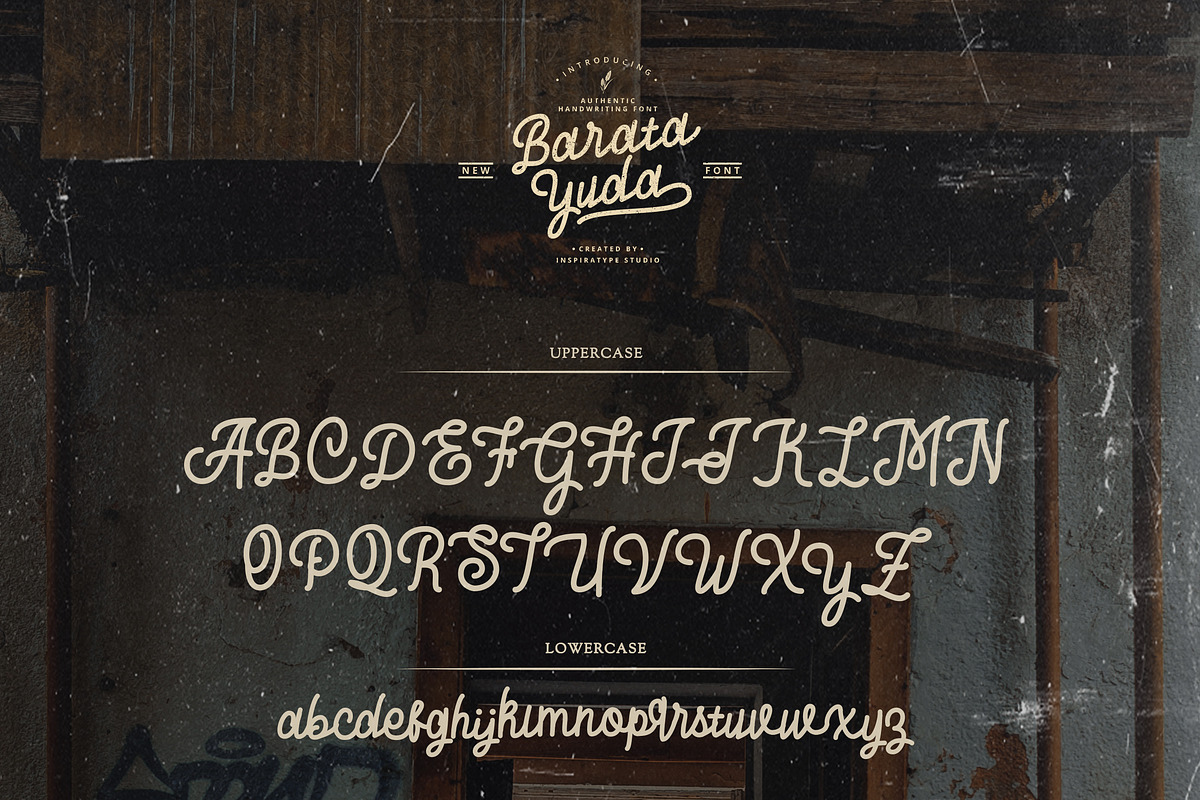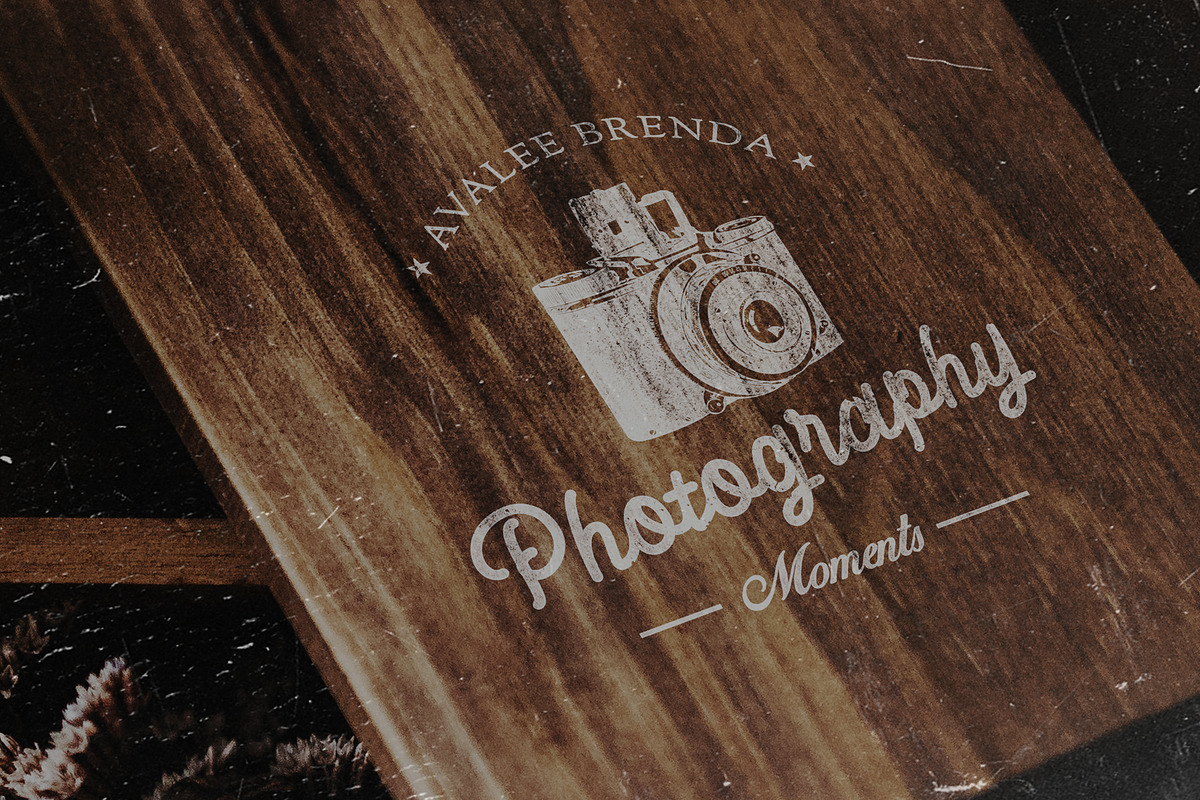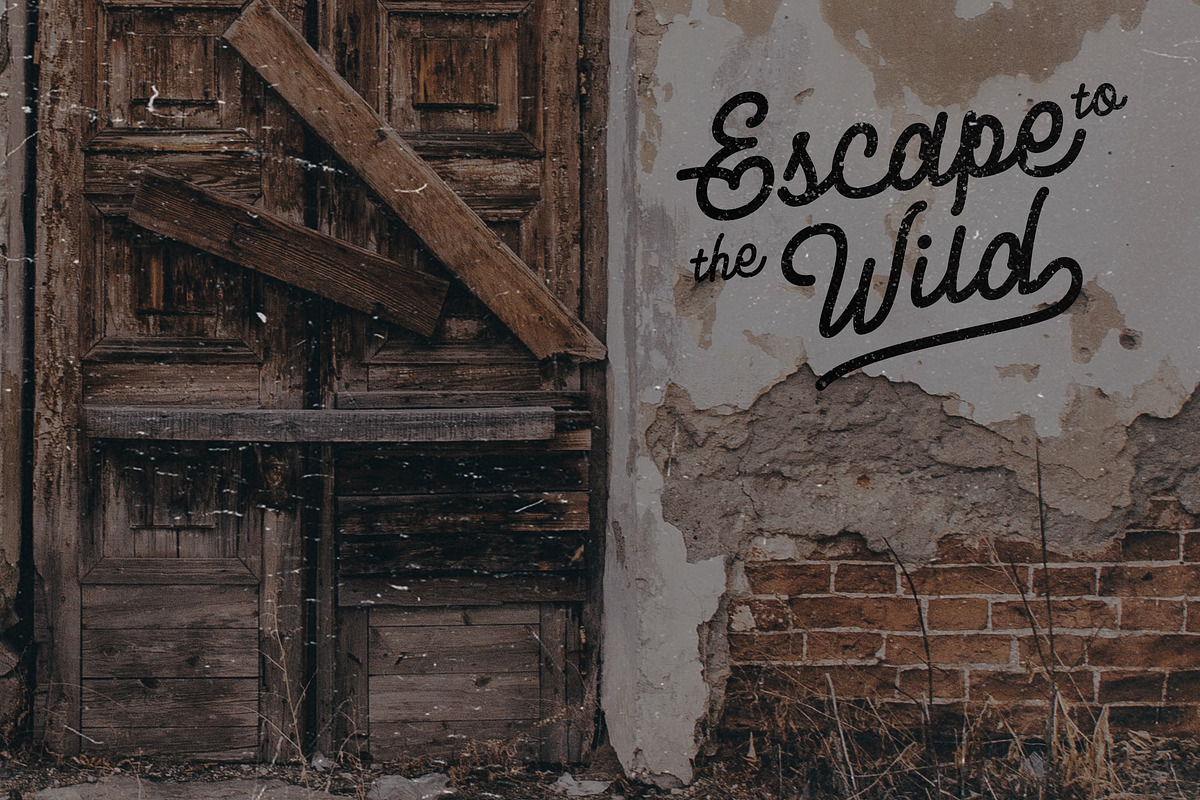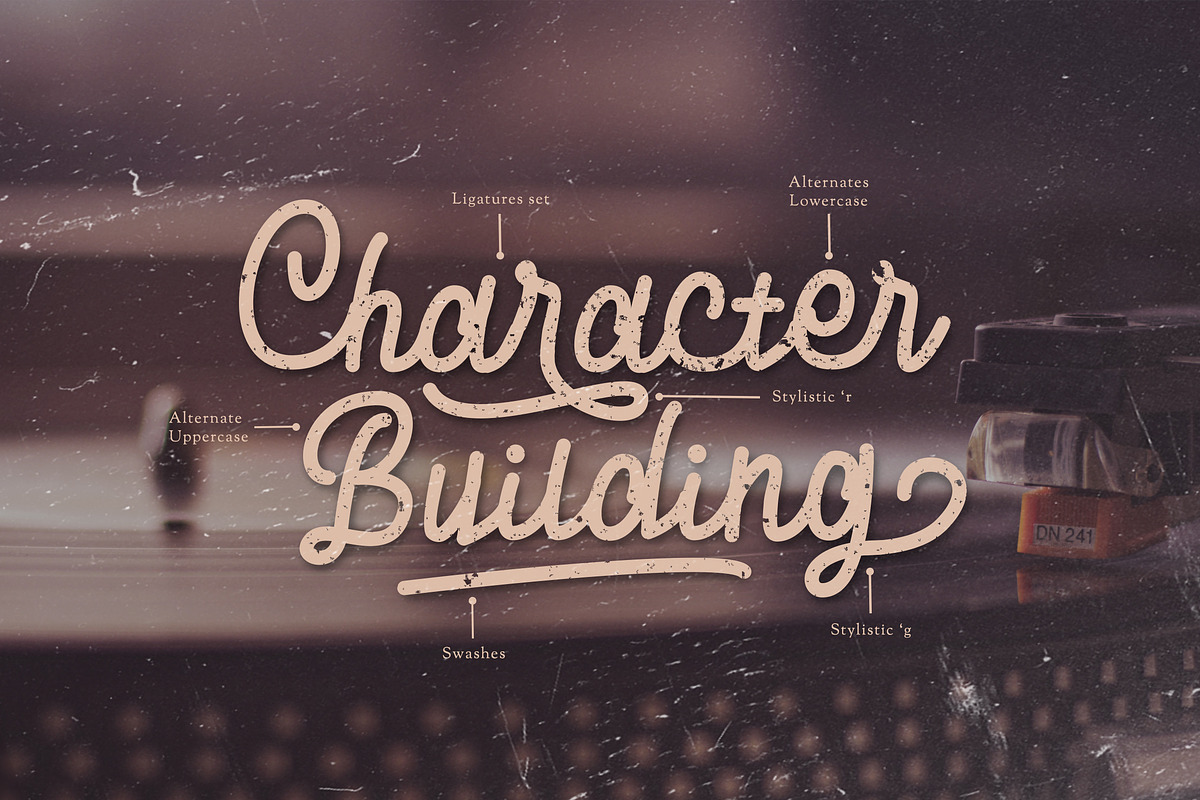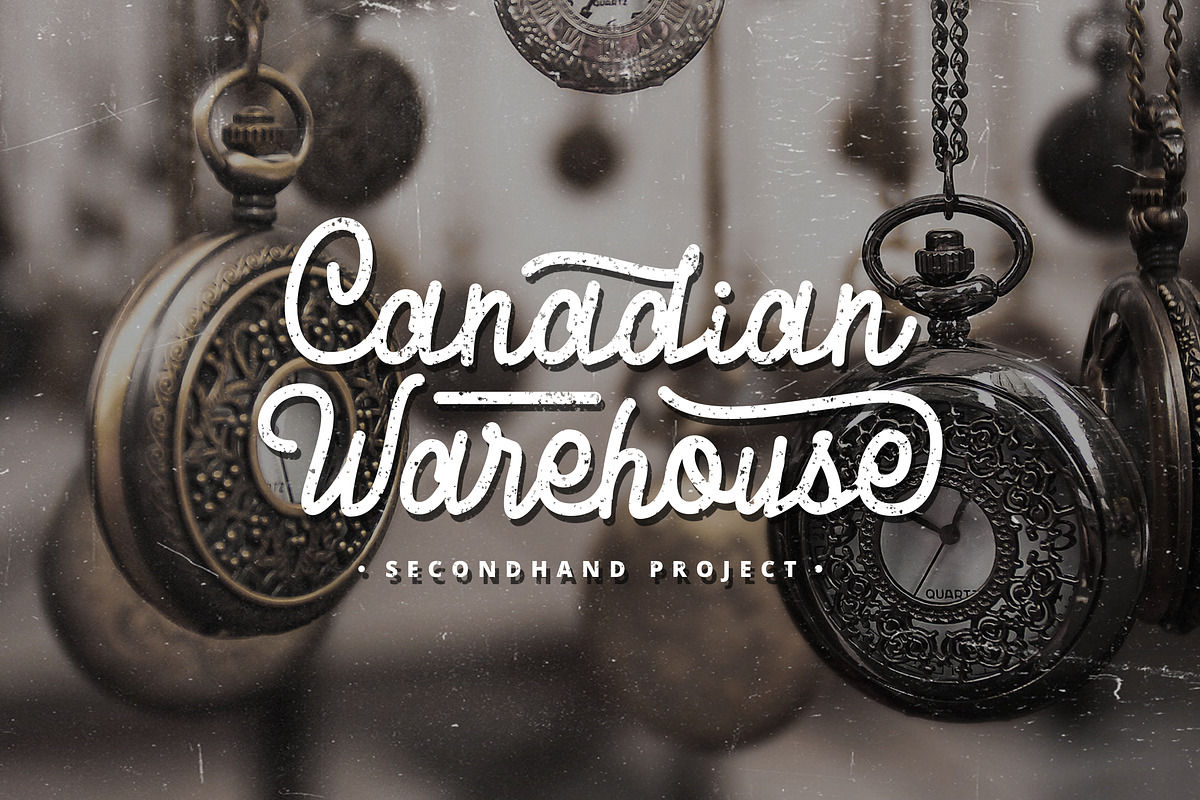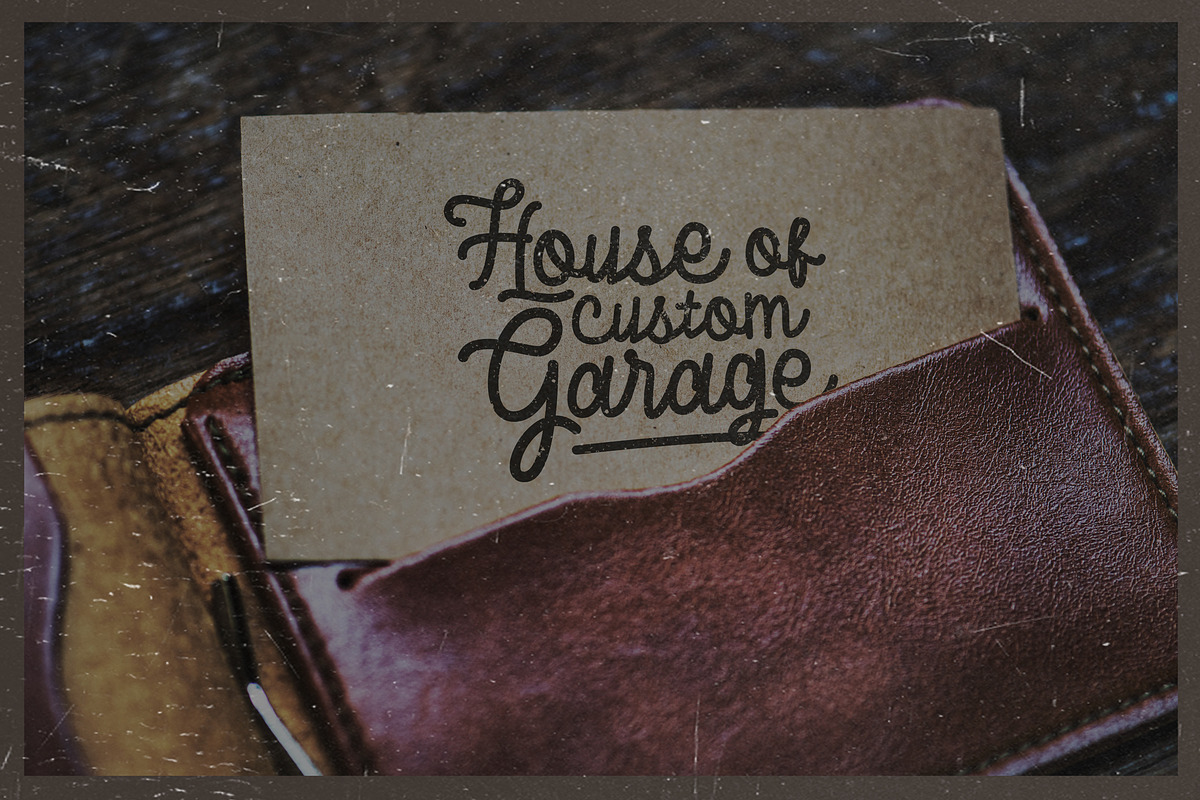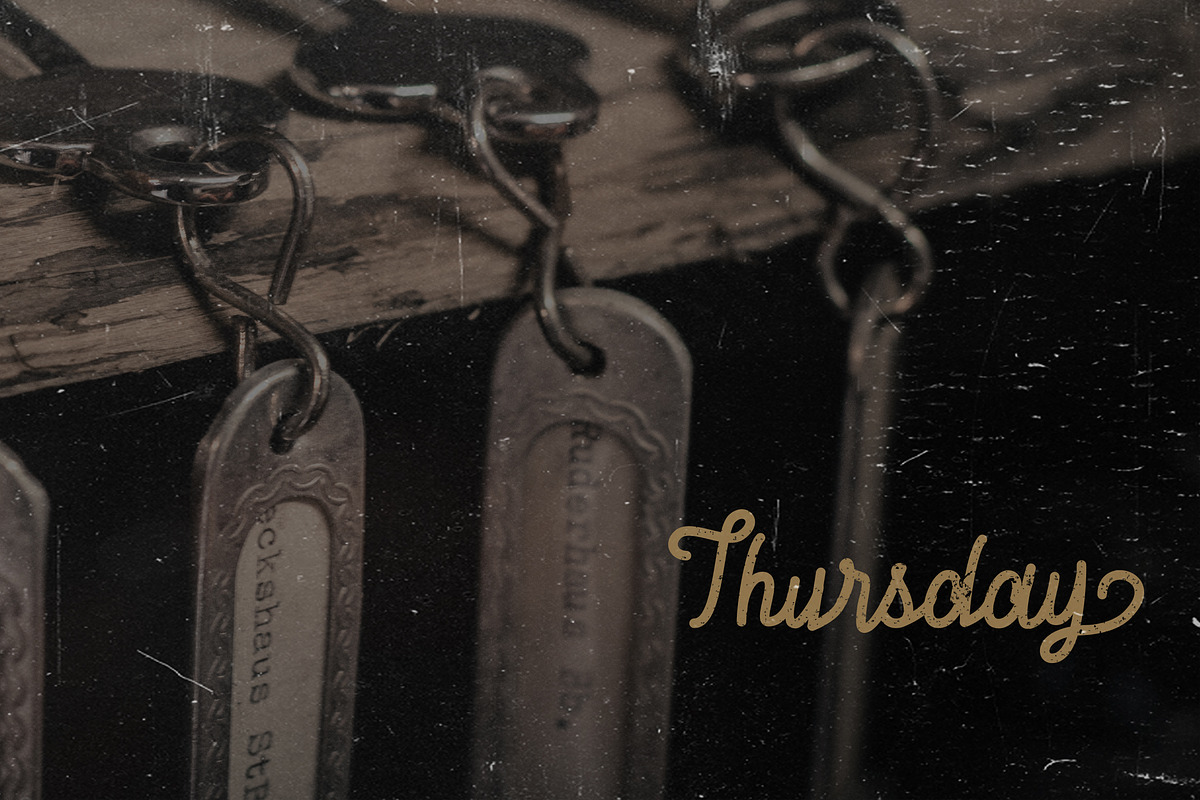
Baratayuda - Authentic Font
"Baratayuda" is a font display that is made by hand, inspired by classic posters.
comes with uppercase, lowercase, numerals, punctuations and so many variations on each character include OpenType alternates, common ligatures and also additional swash to let you customize your designs. Perfect to use for Logotype, Letterhead, Poster, Apparel Design, Label and etc.